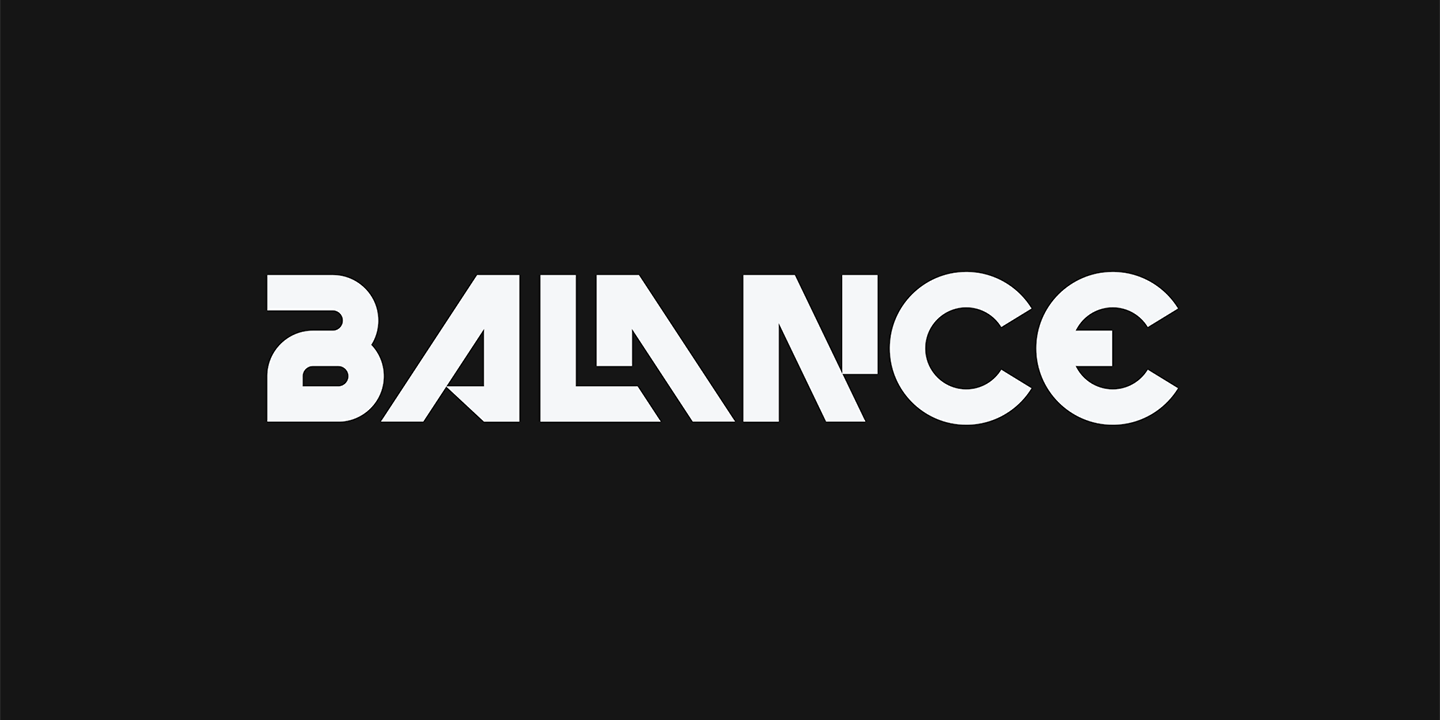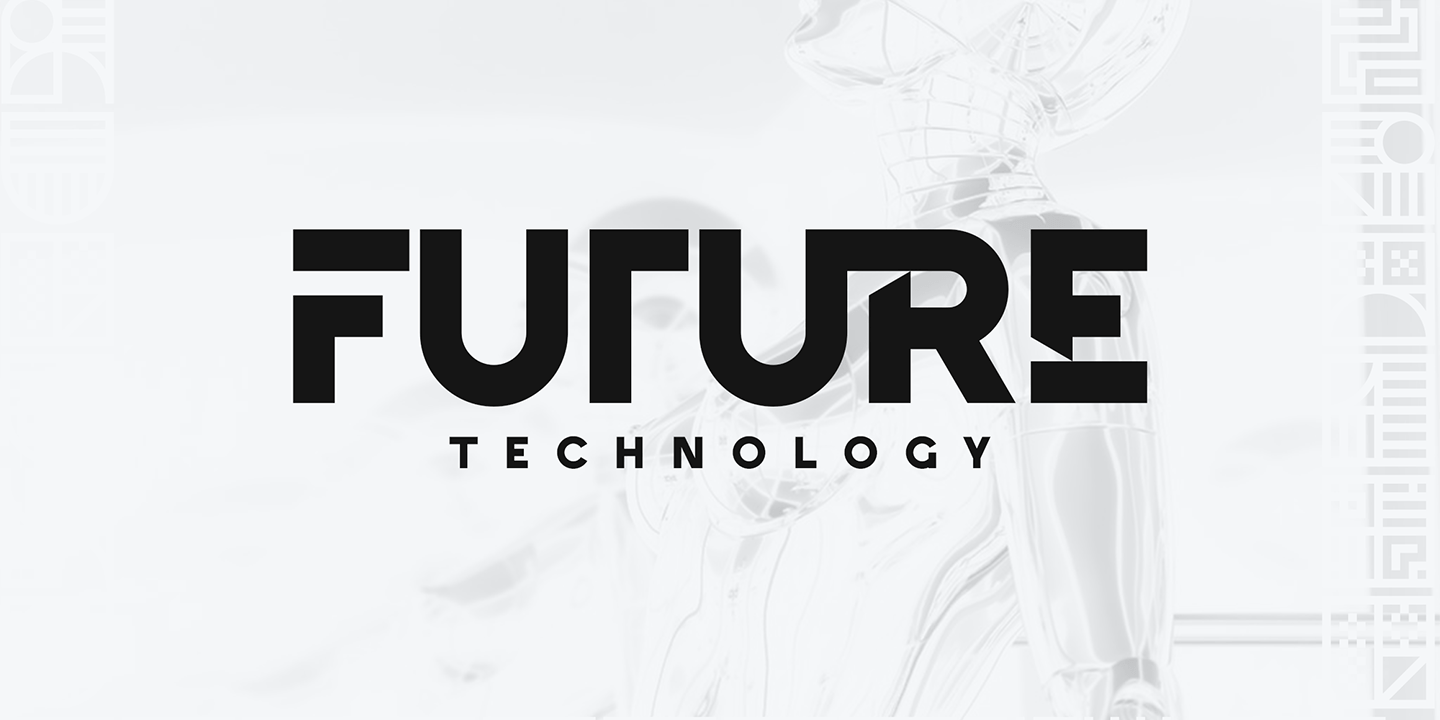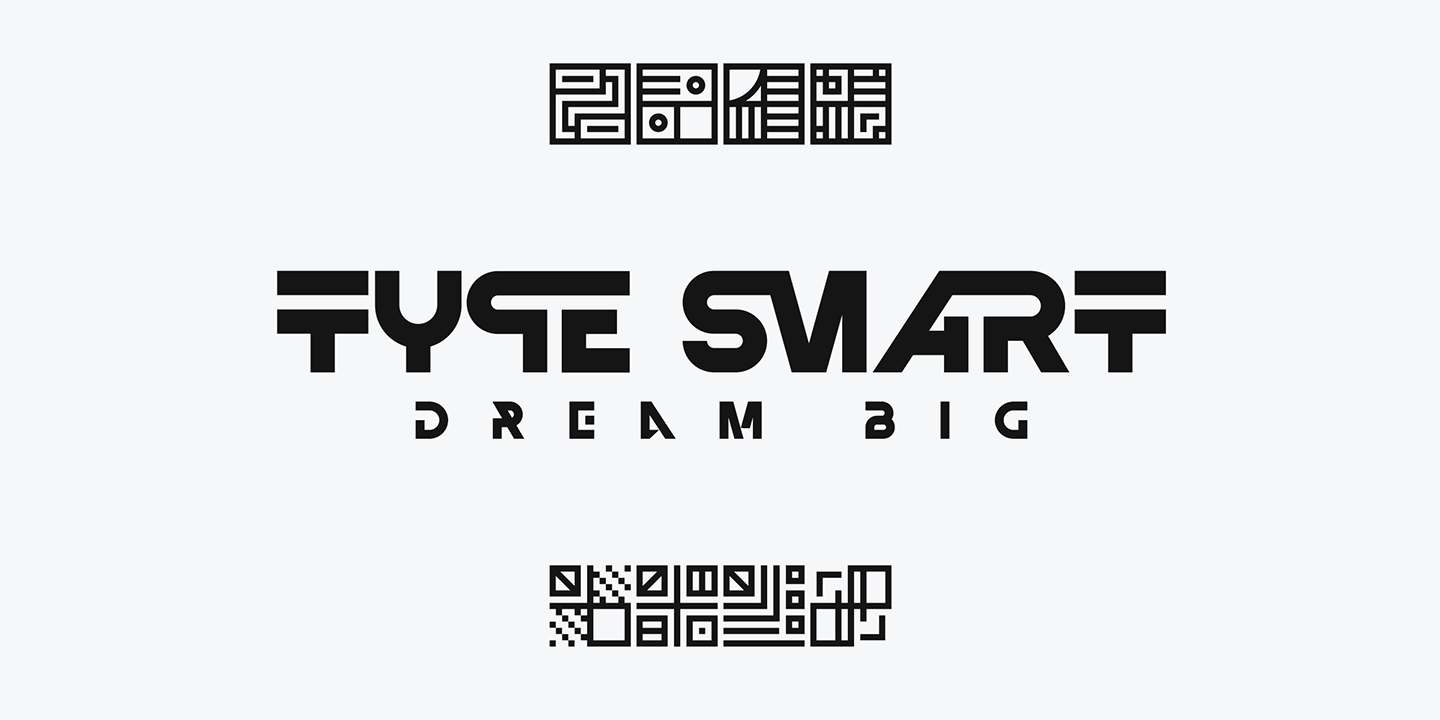
Brand Type is a wonderfully versatile and creatively rich logo font that's sure to make your brand or project stand out. With over 150 ligature glyphs and a wide array of alternate glyphs, it offers endless possibilities for customizing your text.…